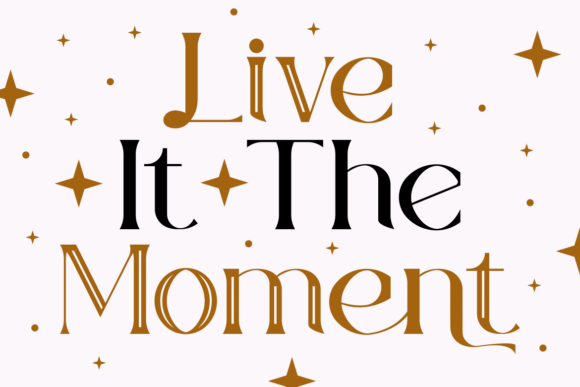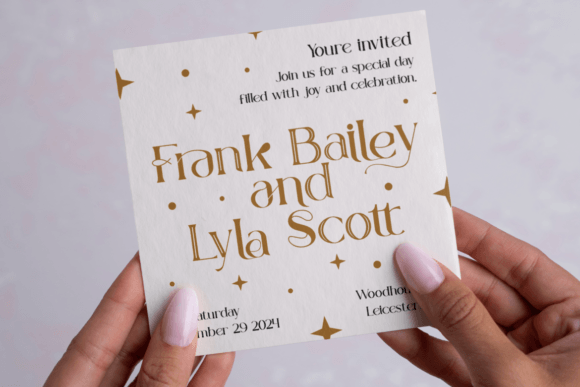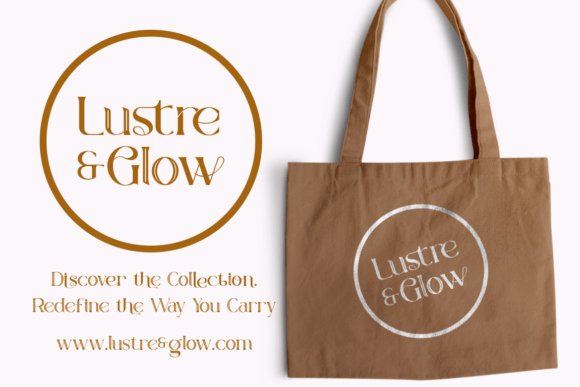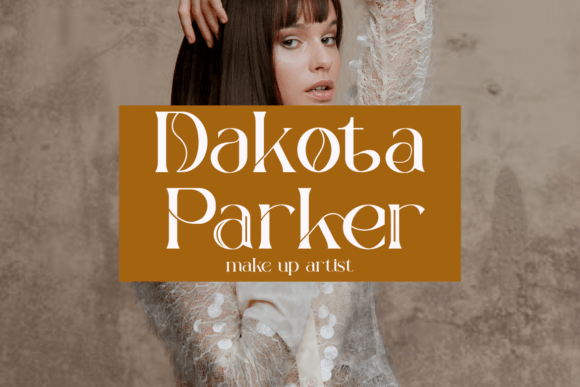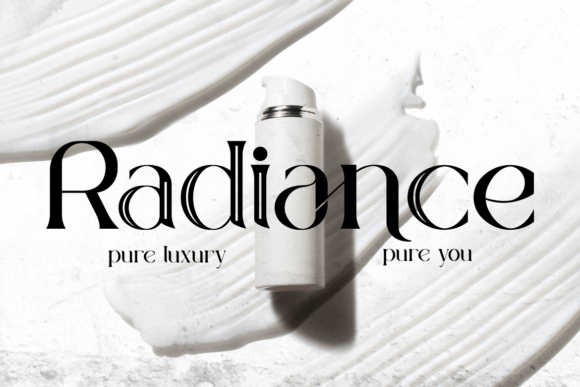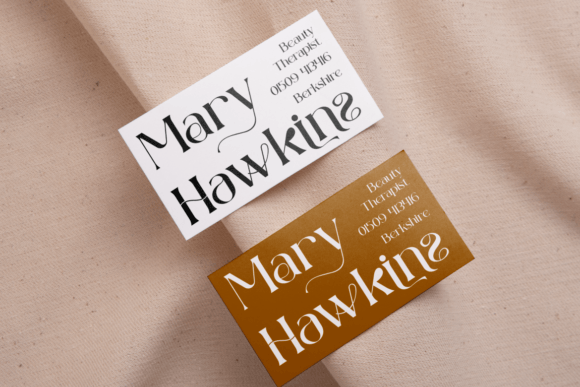
Introducing Corvail – Elegant Sans Font: Elevate Your Designs with Timeless Sophistication
In the world of typography, finding the perfect font that combines modernity with elegance can be a daunting task. However, look no further than Corvail Font, a sophisticated typeface that seamlessly blends contemporary flair with timeless charm. This exquisite sans font boasts a unique serif display style, complete with intricate alternates and ligatures, making it an ideal choice for designers seeking to elevate their projects.
A Masterful Blend of Modernity and Elegance
Corvail Font is a masterpiece of typographic design, carefully crafted to deliver a refined and stylish aesthetic. The letterforms feature sleek curves and subtle star-like embellishments that add a whimsical yet professional touch to any design. This elegant font is perfect for creating stunning logos, branding materials, wedding invitations, packaging designs, and more. With Corvail, you can instantly elevate your projects and convey a sense of luxury and sophistication.
Corvail Font showcased on a soft pastel background, emphasizing its graceful charm.
Key Features of Corvail Font
- Unique Serif Display Style: Corvail’s distinctive serif style sets it apart from other fonts, adding a touch of elegance to any design.
- Intricate Alternates and Ligatures: The font features a range of alternates and ligatures, allowing designers to add a personal touch to their work.
- Sleek Curves and Star-like Embellishments: The carefully crafted letterforms boast sleek curves and subtle star-like embellishments, adding a whimsical yet professional touch.
- Warm Brown-Gold Font Color: The warm, brown-gold font color conveys luxury and sophistication, perfect for high-end designs.
Corvail Font is an incredibly versatile typeface, suitable for a wide range of design applications. Whether you’re working on:
- Editorial Layouts: Create stunning magazine covers, articles, and editorials with Corvail’s elegant charm.
- Book Covers: Add a touch of sophistication to your book covers with Corvail’s refined and stylish aesthetic.
- Posters: Create eye-catching posters that demand attention with Corvail’s unique serif display style.
- Personalized Stationery: Elevate your stationery designs with Corvail’s whimsical yet professional touch.
Why Choose Corvail Font?
With so many fonts available, why choose Corvail? Here are just a few reasons why Corvail stands out:
- Unforgettable Visual Experience: Corvail delivers an unforgettable visual experience, perfect for designers seeking to make a lasting impression.
- Playful Integration of Decorative Elements: The font’s playful integration of decorative elements, like dots and stars, ensures that Corvail stands out in any design setting.
- Refined and Stylish Aesthetic: Corvail’s refined and stylish aesthetic makes it perfect for high-end designs, luxury brands, and sophisticated projects.
In conclusion, Corvail Font is an exceptional typeface that combines modernity with timeless elegance. Its unique serif display style, intricate alternates and ligatures, and sleek curves make it an ideal choice for designers seeking to elevate their projects. With its versatility, refined aesthetic, and whimsical touch, Corvail is sure to become a staple in any designer’s font collection.